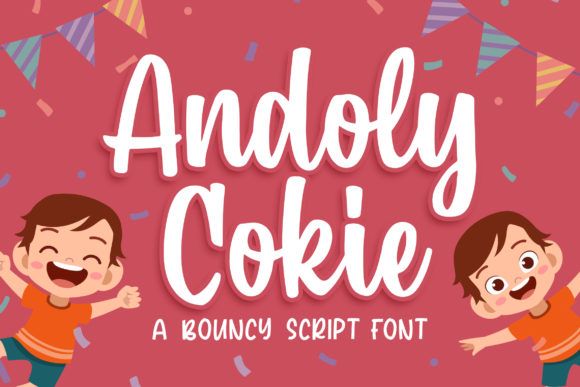
The Magical Allure of Andoly Cokie Font
I’ll never forget the moment I stumbled upon the perfect font for a wedding invitation project. I had been searching for what felt like hours, trying out font after font, but nothing seemed quite right. That was until I discovered Andoly Cokie Font – a magical handwritten font that stole my heart with its elegant touch and authentic feel.
A Personal Review of Andoly Cokie Font
As a designer, I’m always on the lookout for fonts that can help me create stunning visual content. Andoly Cokie Font did not disappoint. Here’s what I love about it:
- ✨ Elegant and sophisticated feel that’s perfect for wedding invitations, stationery, and social media posts.
- ✅ Highly legible, even at smaller font sizes.
- 💕 Unique and authentic handwritten style that adds a personal touch to any design.
- 🎉 Versatile and can be used for a variety of design projects, from formal to informal.
While Andoly Cokie Font is an amazing font, it’s not without its quirks. Here are a few things to keep in mind:
- 🤔 Some characters may not work well in all design programs, so be sure to test them out before committing to a project.
- ⚠️ The font may not be suitable for very long blocks of text, as it can become a bit tedious to read.
The Story Behind Andoly Cokie Font
Andoly Cokie Font was created by a talented designer who wanted to create a font that would add a touch of elegance and sophistication to any design. The designer was inspired by traditional handwritten fonts, but wanted to create something unique and modern. The result is a font that’s both elegant and authentic.
| Font Name | Andoly Cokie Font |
| Author | Blankids Studio |
| What is Andoly Cokie Font? | Andoly Cokie Font is a magical handwritten font carefully created with a touch of elegance. |
| What can I use Andoly Cokie Font for? | You can use Andoly Cokie Font to create gorgeous wedding invitations, beautiful stationery art, eye-catching social media posts, and cute greeting cards. |
| Is Andoly Cokie Font easy to read? | Yes, Andoly Cokie Font is highly legible, even at smaller font sizes. |